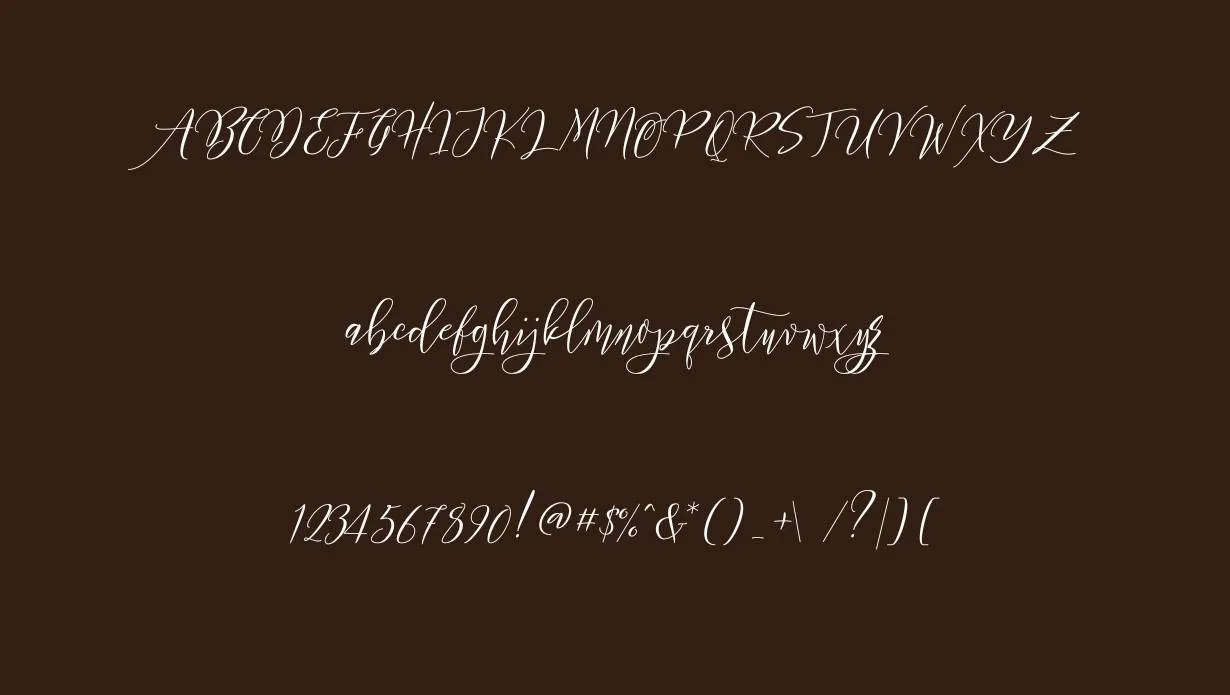
The Frutilla Script font is like a graceful dance for your words. With its flowing and elegant design, it’s ideal for crafting beautiful wedding invitations, designing romantic love notes, or adding a touch of sophistication to your branding.
This font has a moderate weight and standard width, giving your words a romantic and timeless appearance. Picture using the Frutilla Script font for a love letter, turning your text into a poetic expression of affection.